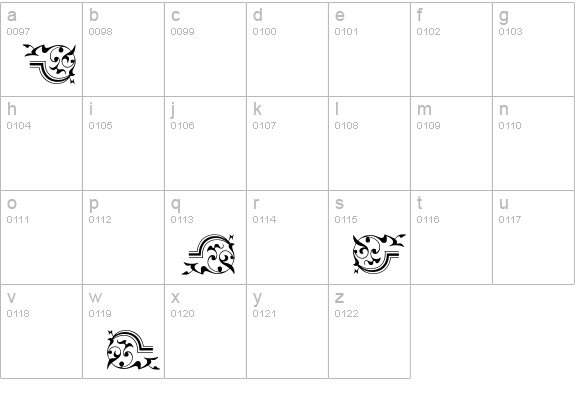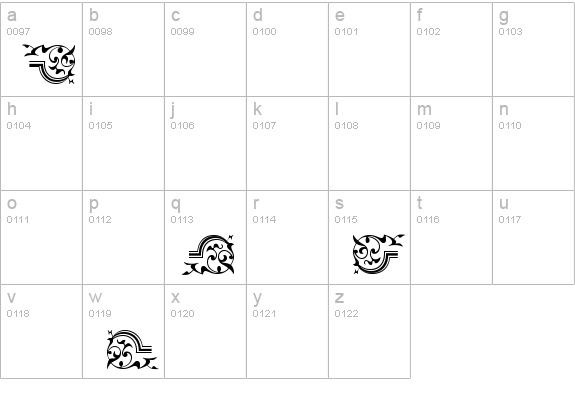
FleuronTwo Font Details
FleuronTwo is a beautifully crafted font that exudes elegance and sophistication. Its intricate details and delicate curves make it a perfect choice for projects that require a touch of refinement. This versatile font can be used for a wide range of design purposes, from invitations to branding to editorial layouts. What sets FleuronTwo apart is its timeless appeal and classic charm. Whether you're working on a wedding invitation or a high-end fashion magazine, this font will add a touch of luxury to your designs. Its graceful flourishes and graceful lines give it a sense of grace and sophistication that is sure to impress. The best part? FleuronTwo is available for free download at FontsMarket.com. So, whether you're a seasoned designer looking to add a new font to your collection or a novice designer just starting out, FleuronTwo is the perfect choice. Download it today and add a touch of elegance to your next project.